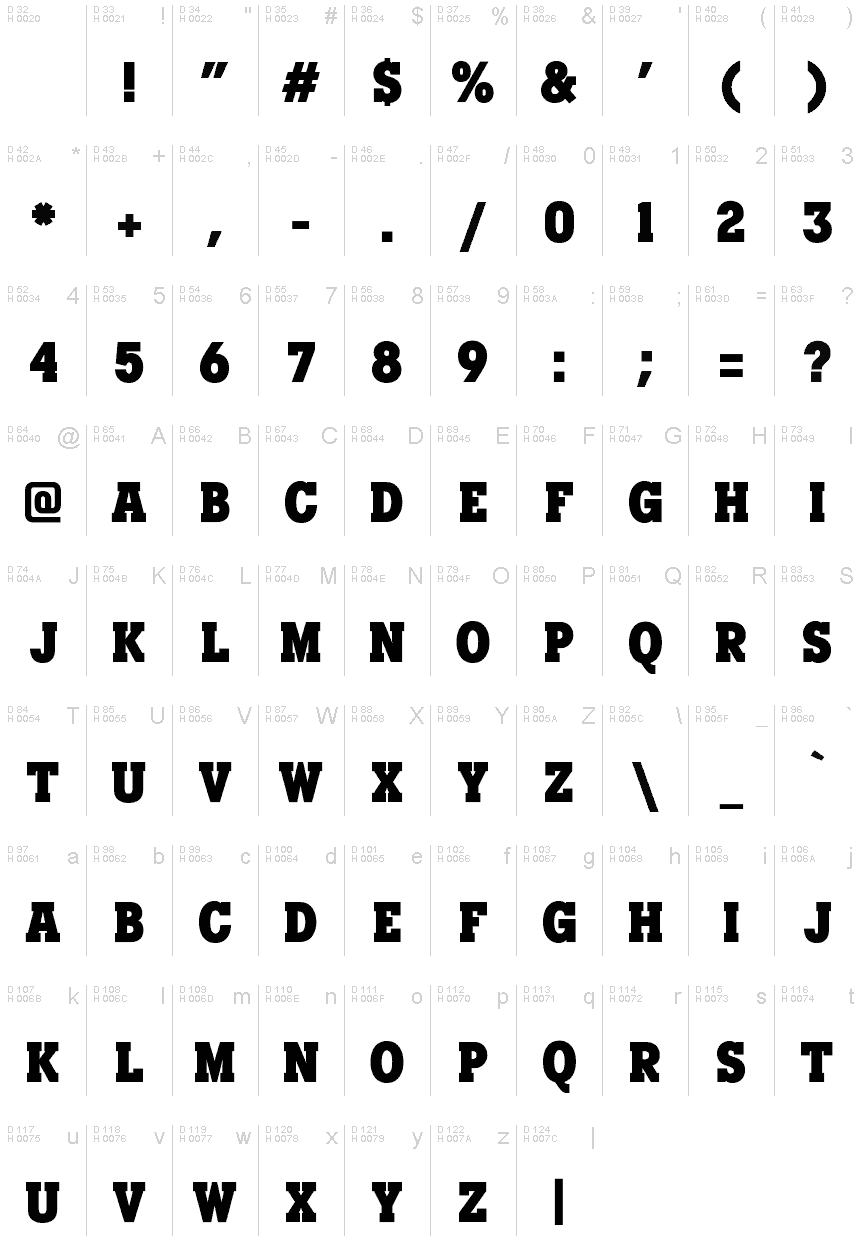
Manhandle Slab
Manhandle Slab, a bold and striking serif typeface crafted by HENRIavecunK, exudes a commanding presence. Its thick, robust strokes and angular serifs lend a distinctive old-school charm, perfect for creating an impactful visual statement. This typeface's unwavering confidence makes it an ideal choice for branding, sports team identities, and technology-driven projects that demand a strong, assertive aesthetic.
Manhandle Slab's versatility extends beyond its captivating appearance. Its bold, legible letterforms make it suitable for a diverse range of applications, from eye-catching headlines to dynamic body text. Whether you're designing for a rugged outdoor brand, a high-tech startup, or an energetic school project, Manhandle Slab's dynamic personality is sure to leave a lasting impression.
Manhandle Slab is a font by HENRIavecunK, designed by HENRIavecunK in 2018.